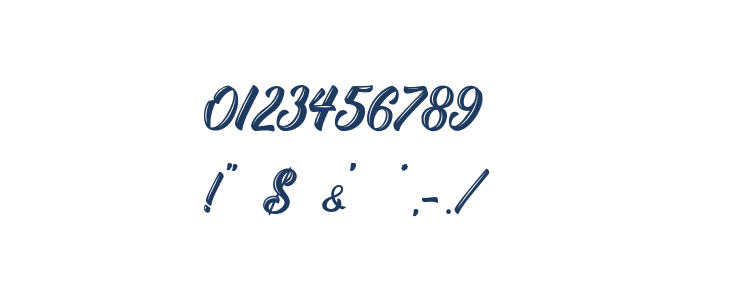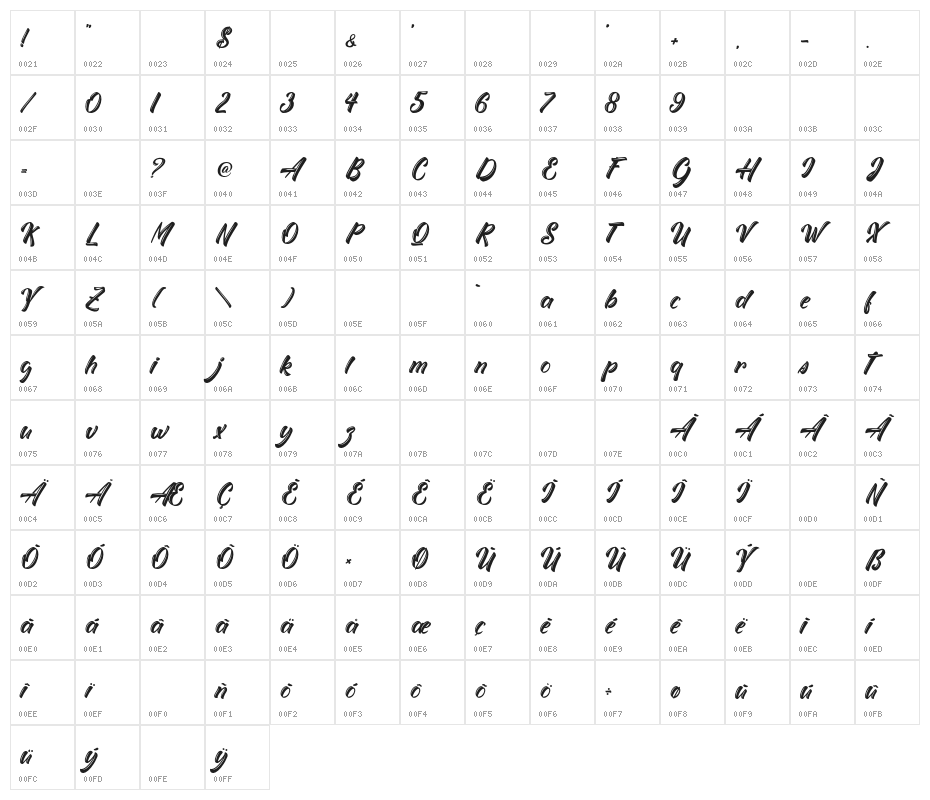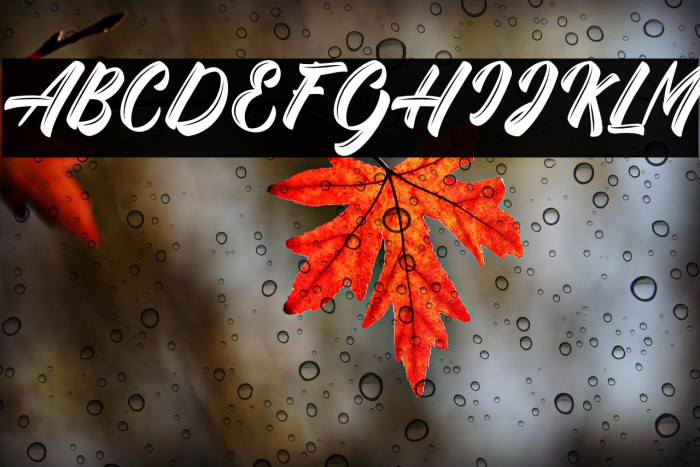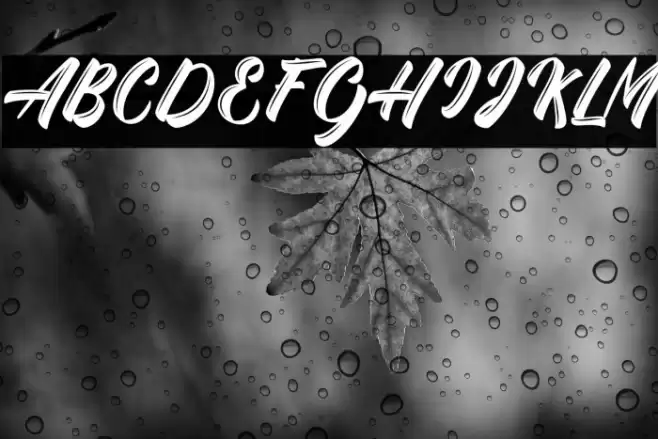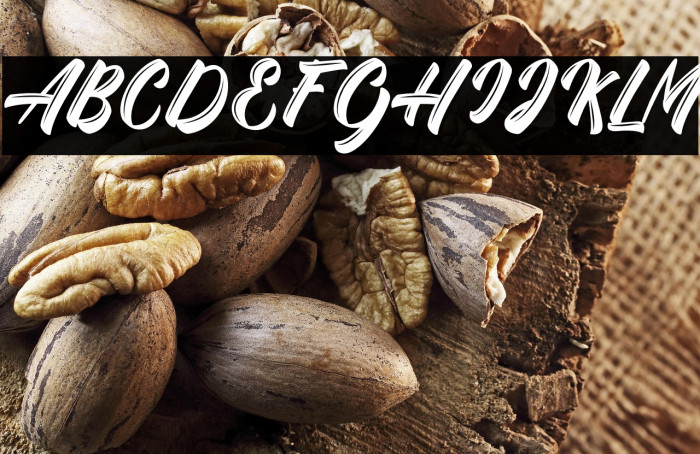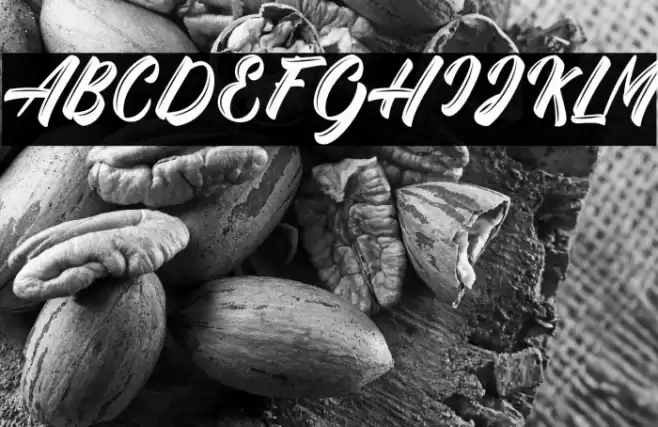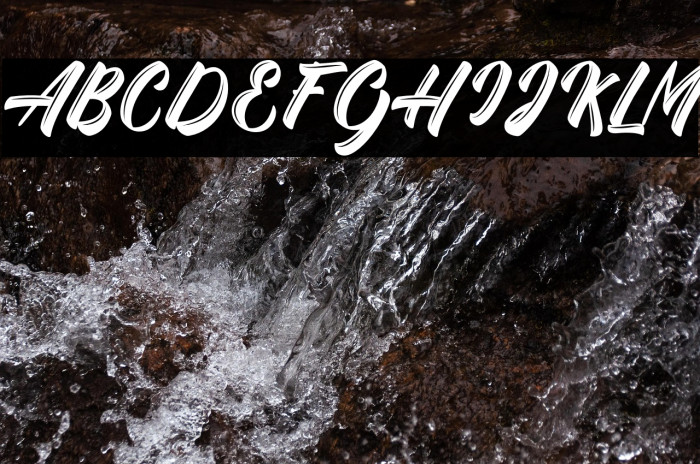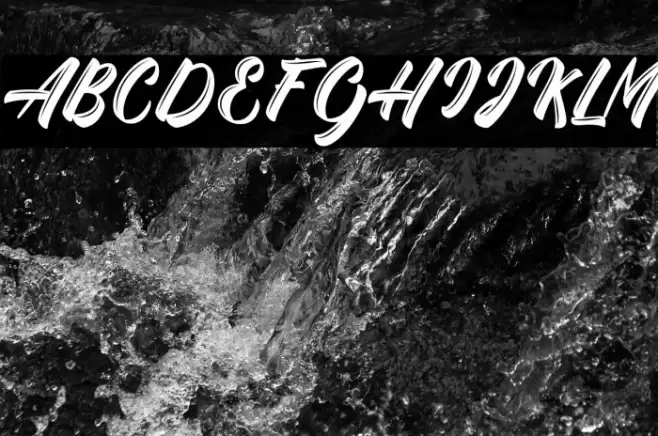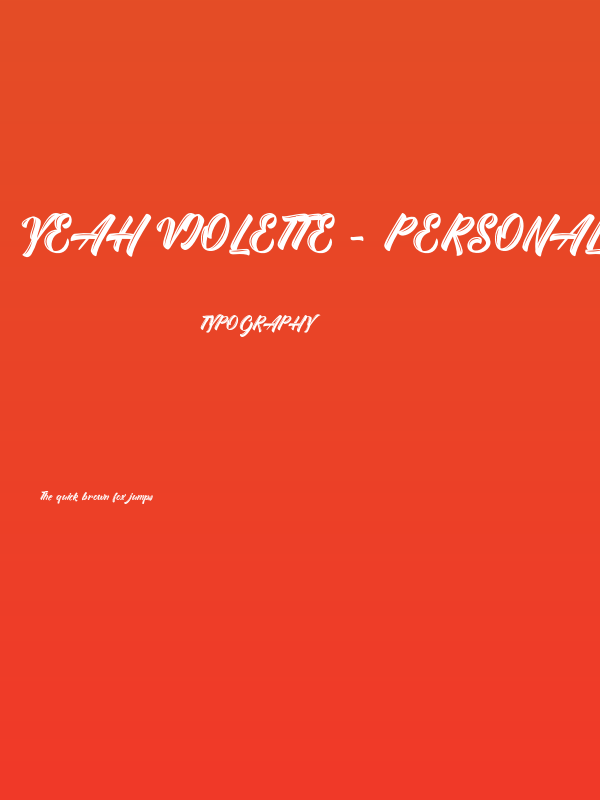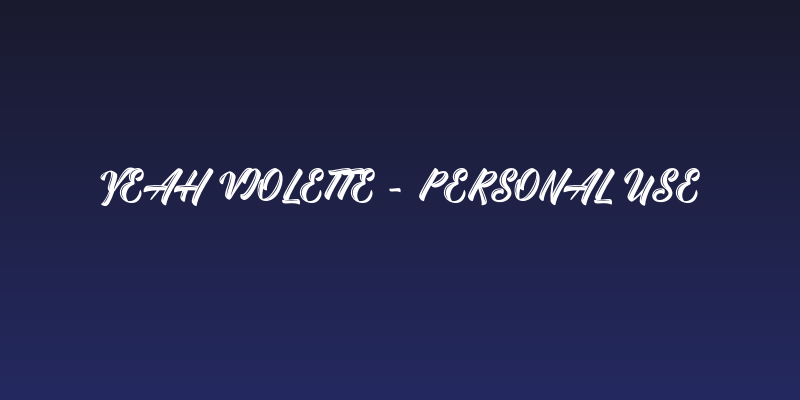
Yeah Violette - Personal Use Font
Yeah Violette - Personal Use Description
This font features a bold and expressive script style, characterized by its flowing, cursive letterforms and dynamic strokes. The uppercase letters are particularly striking, with exaggerated curves and flourishes that give a sense of movement and elegance. The lowercase letters maintain a consistent style, complementing the uppercase with their smooth and connected forms. Numbers and special characters are designed to match the overall aesthetic, ensuring a cohesive look. The font's boldness and high contrast in stroke thickness make it stand out, ideal for making a statement.